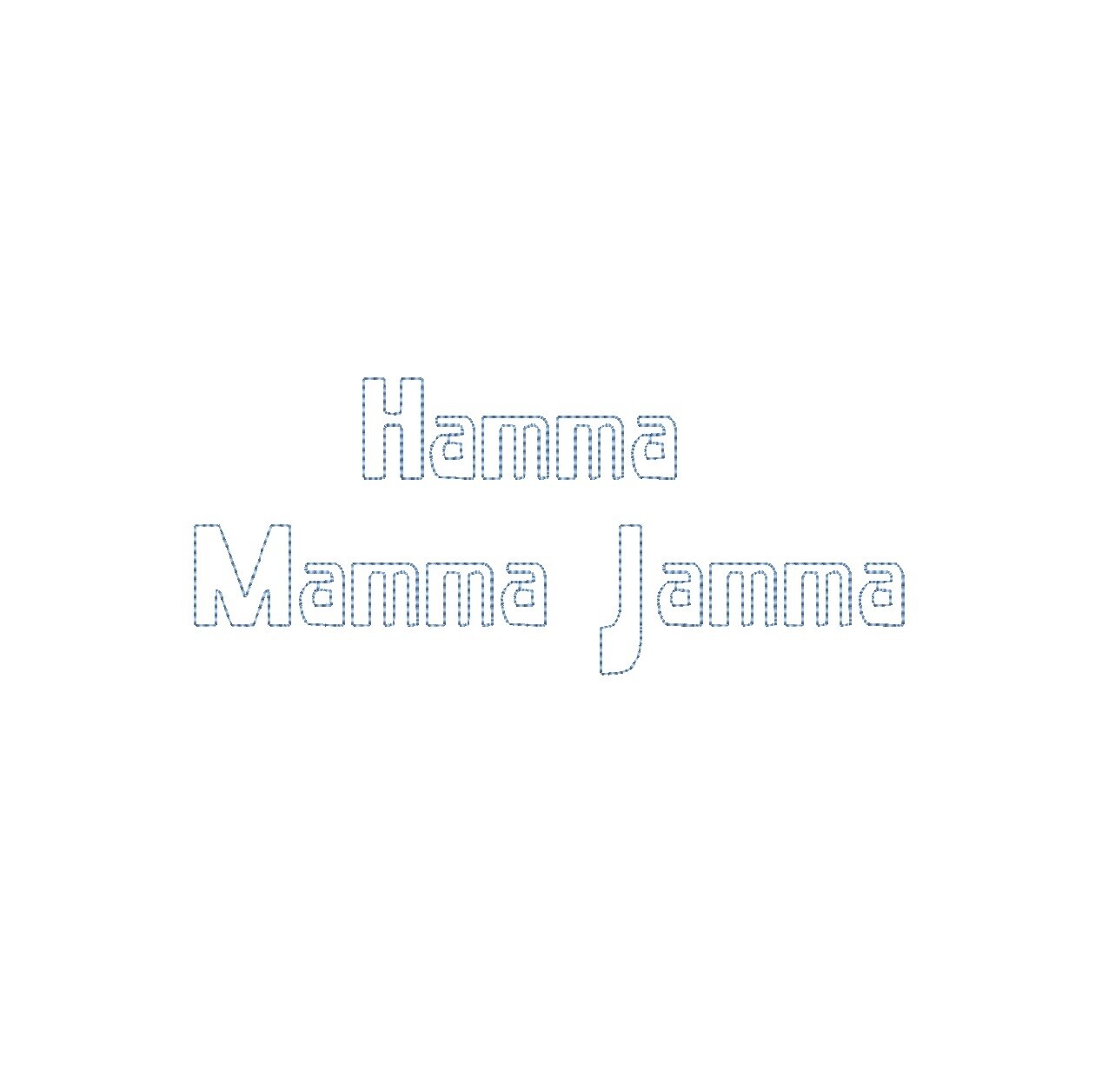
Elevate your embroidery with the Hamma Mamma Jamma Bean Stitch Outline ESA font. Crafted for compatibility with Wilcom Studio e4.5.6 and Hatch 3 versions and beyond, this font adds a playful and energetic touch to your designs. The dynamic bean stitch outline style adds depth and character, perfect for monograms, labels, and decorative elements. Seamlessly integrate and achieve precise stitching for enhanced embroidery projects. Explore a world of creative possibilities in Wilcom Studio and Hatch software with the Hamma Mamma Jamma Bean Stitch Outline ESA font. Elevate your designs and infuse them with vibrant personality today.